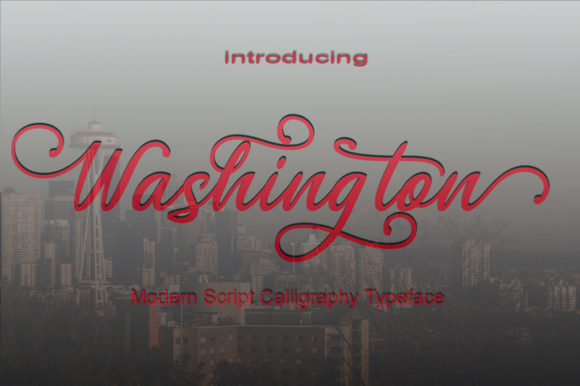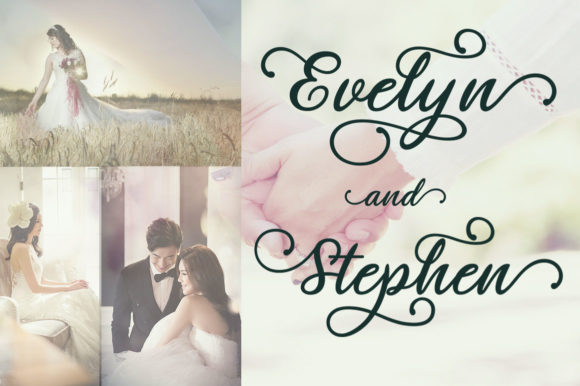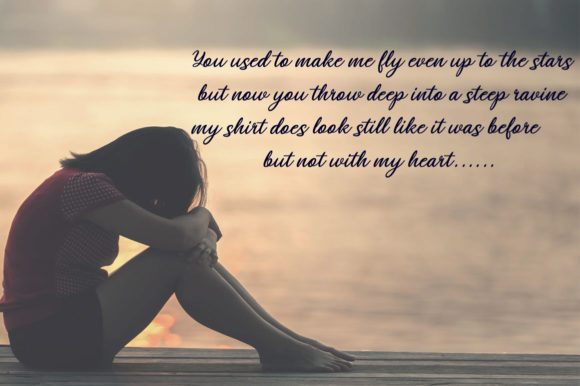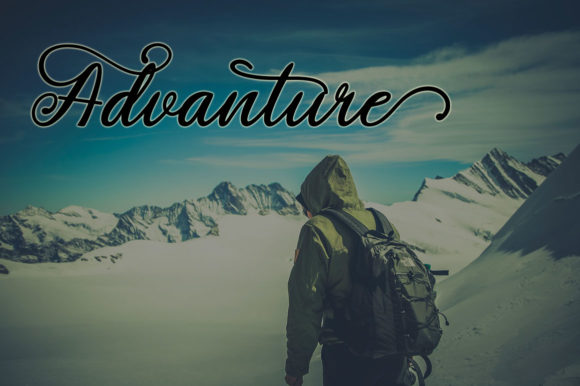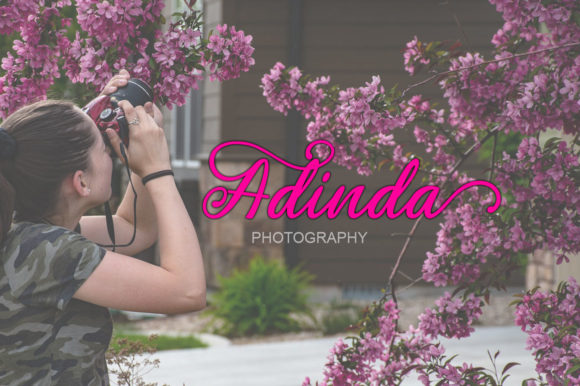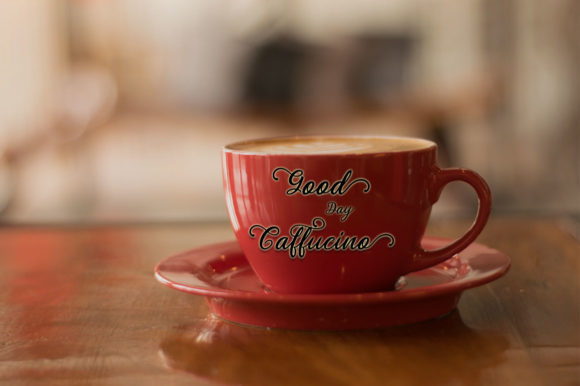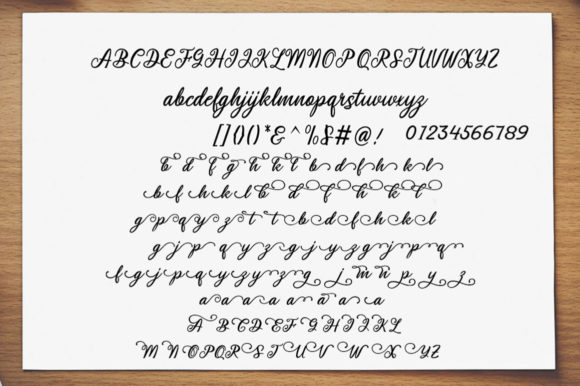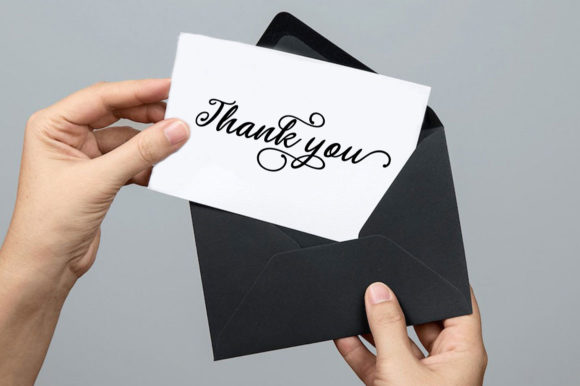
Washington Font
About Washington Font
Washington is a timeless handwritten font with a contemporary twist. Get inspired by its playful swashes and turn any design project into a stand out!